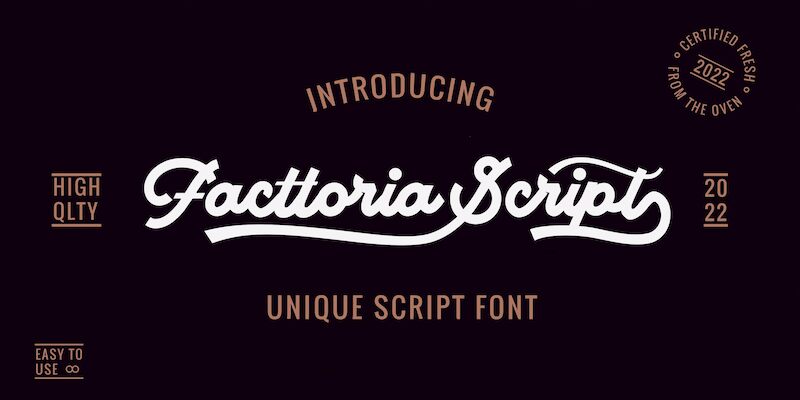
With its vintage script style, the Facttoria Script font brings a touch of nostalgia and elegance to any project. Crafted by Mans Greback, this calligraphic lettering boasts thick characters that exude confidence and charm.
Perfect for wedding invitations, greeting cards, and branding materials, Facttoria Script adds a unique and timeless flair. Its strong personality shines through in designs for fashion labels, boutique hotels, and artisanal products. Whether you're looking to create a retro-inspired logo or add a touch of sophistication to your website headers, Facttoria Script is the perfect choice.
Use # after any word to make a tail.
Example: Signature#
Use _ anywhere in a word to make a swash.
Example: Love_letter
Use multiple underscores to make different swashes.
Example: Hand_____writer